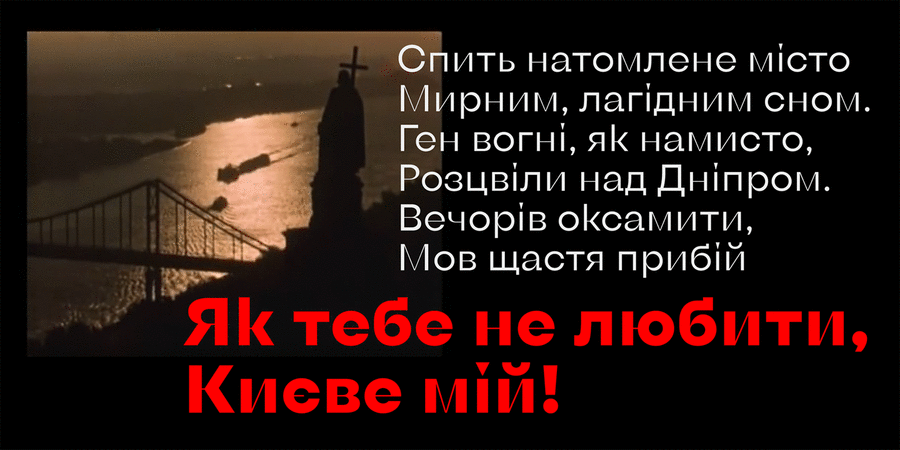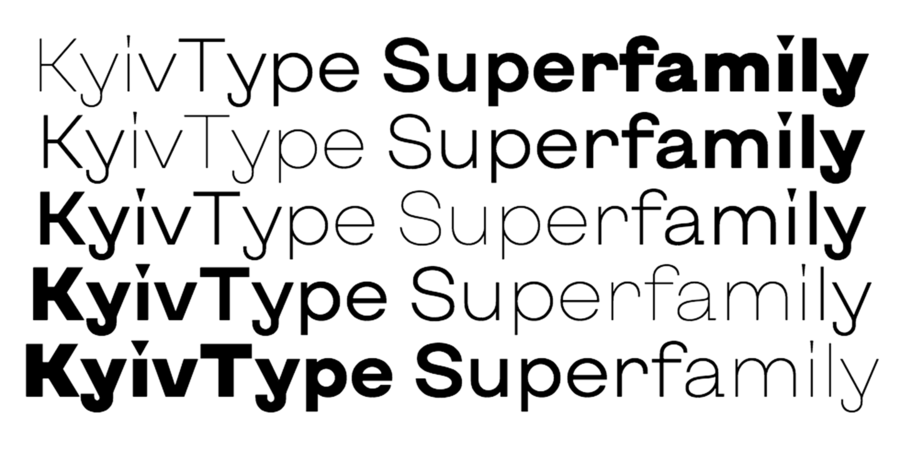
The Sans Serif part of Kyiv Type superfamily. A typeface for Kyiv with many faces and a sharp temper appeared when Dmitry Rastvortsev joined the #newkyivlogo project (chestnut leaf as the logo of Kyiv). “Kyiv is different. A little rude. A bit intelligent. A bit party. A bit hipster. A bit traditional. It is an eclectic city. It easily includes different things and people – this creates the Kiev that I love. The typeface is the same – a little rough, a little intelligent, a little party, a little traditional, a little wild. And very, very different.” – this is how the project is described by Alexander Tregub – the founder of Projector and the ideological inspirer of the new Kyiv logo.
Kyiv*Type was created with love for Kyiv, with the support of Banda, Bulanov creative büro and Projector. The font was designed by Dmytro Rastvortsev in 2019-2020.
Associations for font family Kyiv Type SansTypeface personality and character:
static, stable, globalized, globalistic, urban, high-quality, modern, fashionable, technically, original, robust, manly, notable, bright, daring, accurate, flat, practical, solid, reliable, self-assured, strong, engineering, industrial, rigid, rude, cutting, crisp, architectural, clean, chilly, fresh, spectacular, cultural, smooth, straight, steel, strict, interesting
Typeface exhibits stylistic traits: